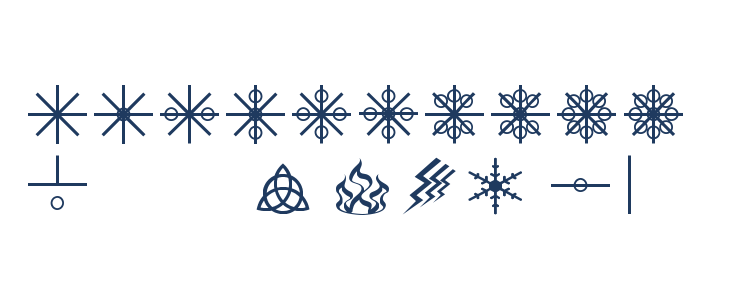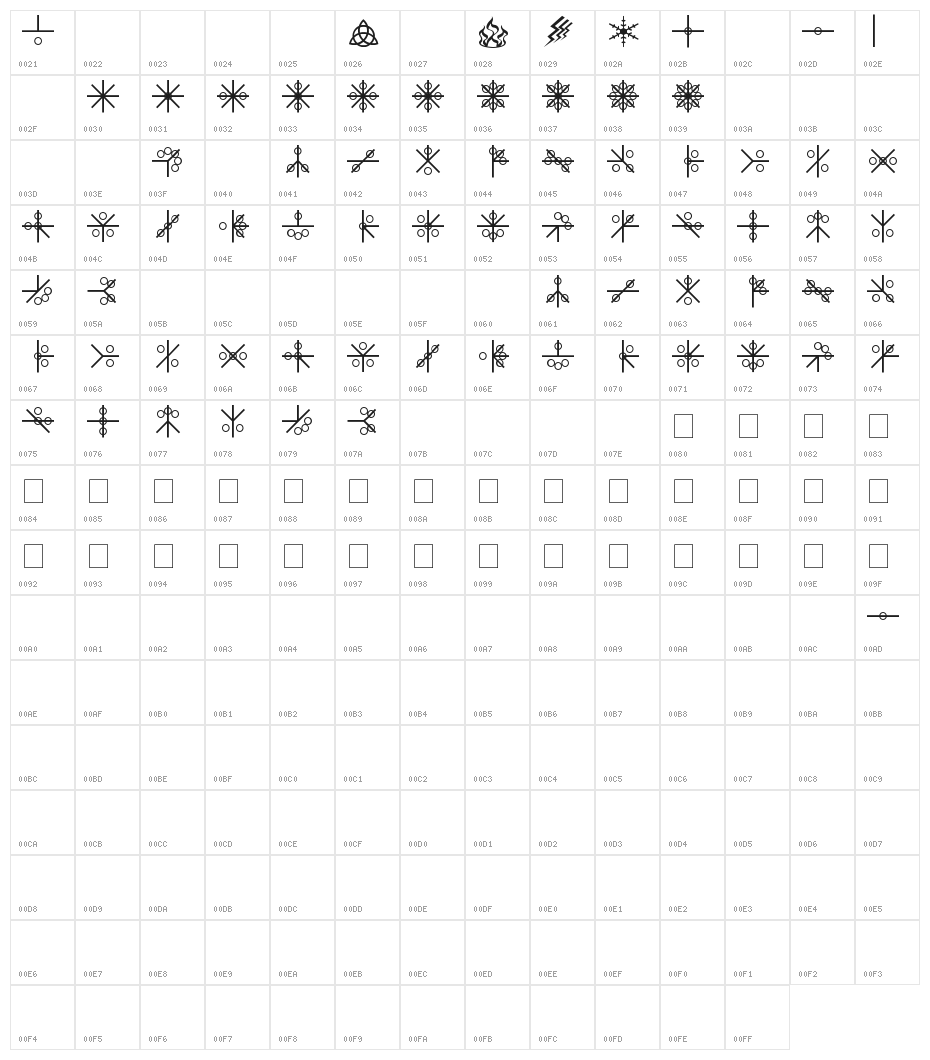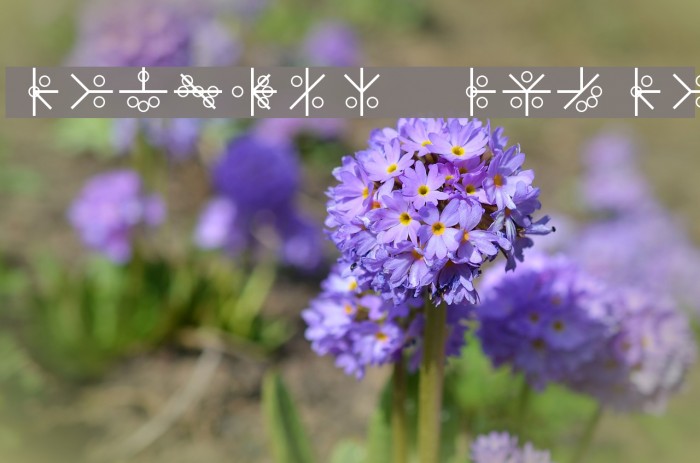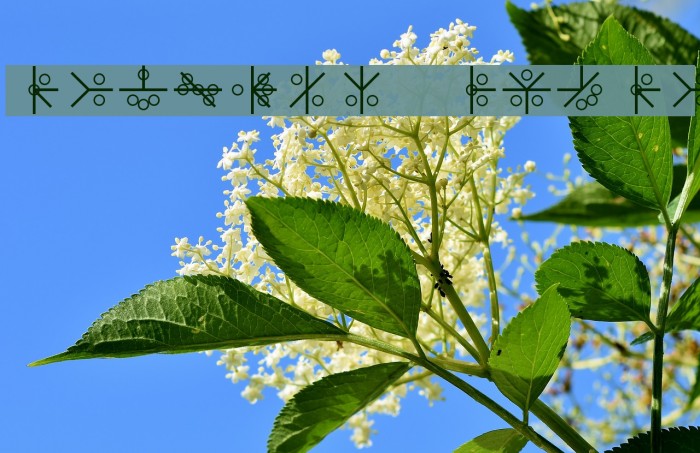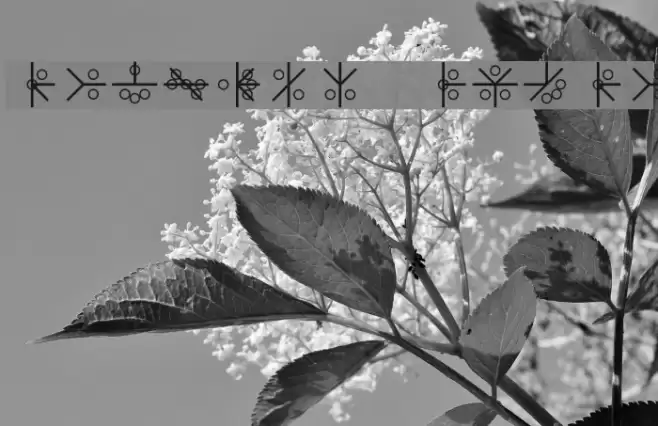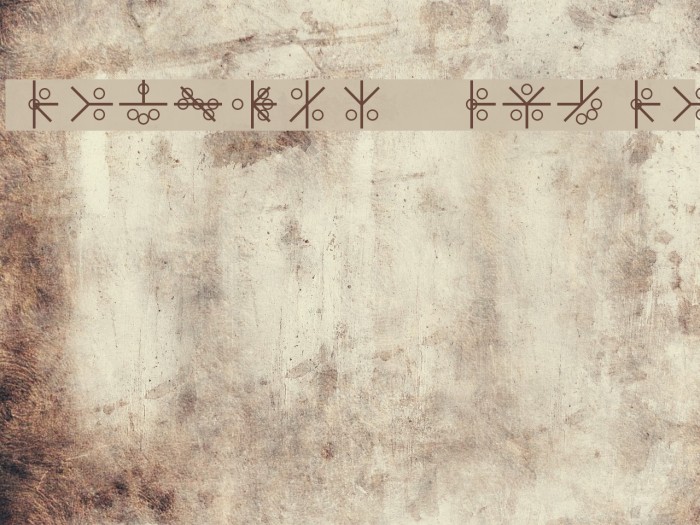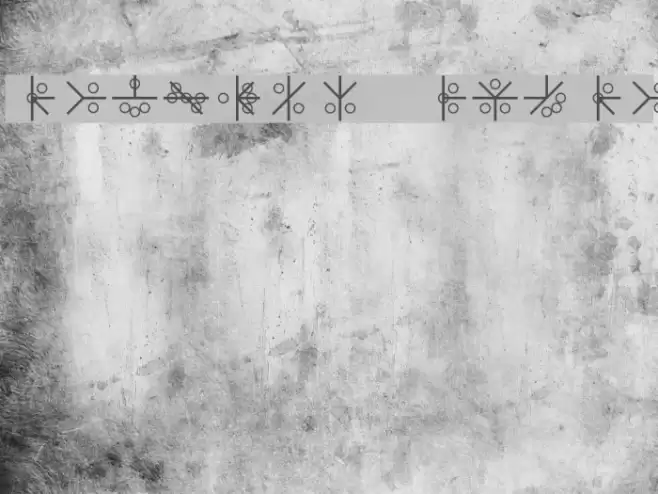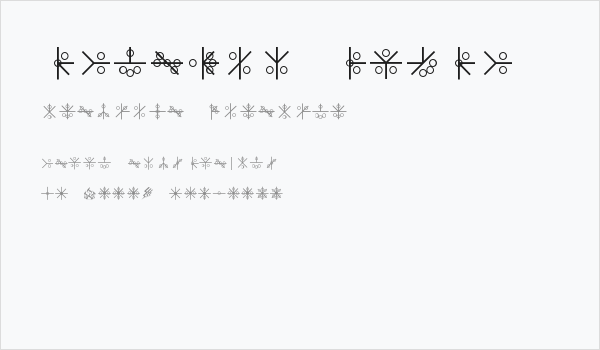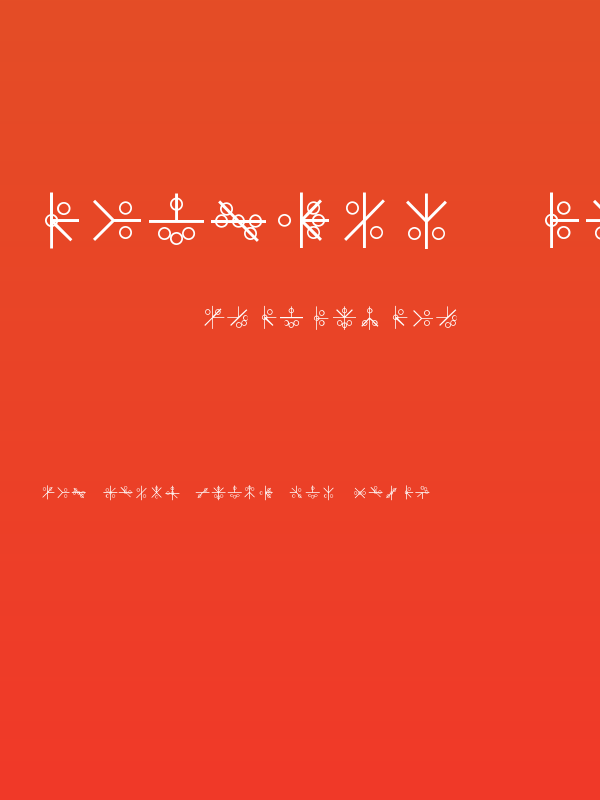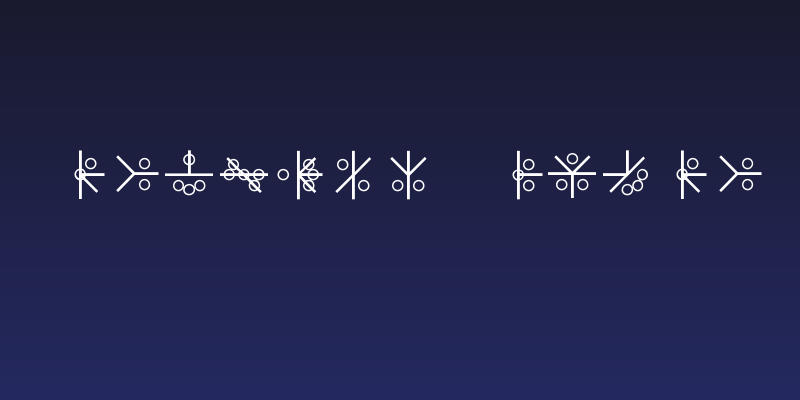
PHOENIX GLYPH Font
PHOENIX GLYPH Description
This set of symbols features intricate and abstract glyphs that resemble a fusion of geometric shapes and organic forms. Each character is unique, with a combination of lines, circles, and angles that create a sense of mystery and complexity. The symbols appear to be inspired by ancient scripts or mystical symbols, with a modern twist. The overall design is highly decorative, making it suitable for artistic and creative projects. The characters are evenly spaced, with a consistent line weight that adds to the uniformity of the set.
Overall StyleMystical, Decorative
Use CaseLogos, Decorative elements
Proposed ProjectsIdeal for use in fantasy-themed designs, game interfaces, or as decorative elements in graphic design projects.